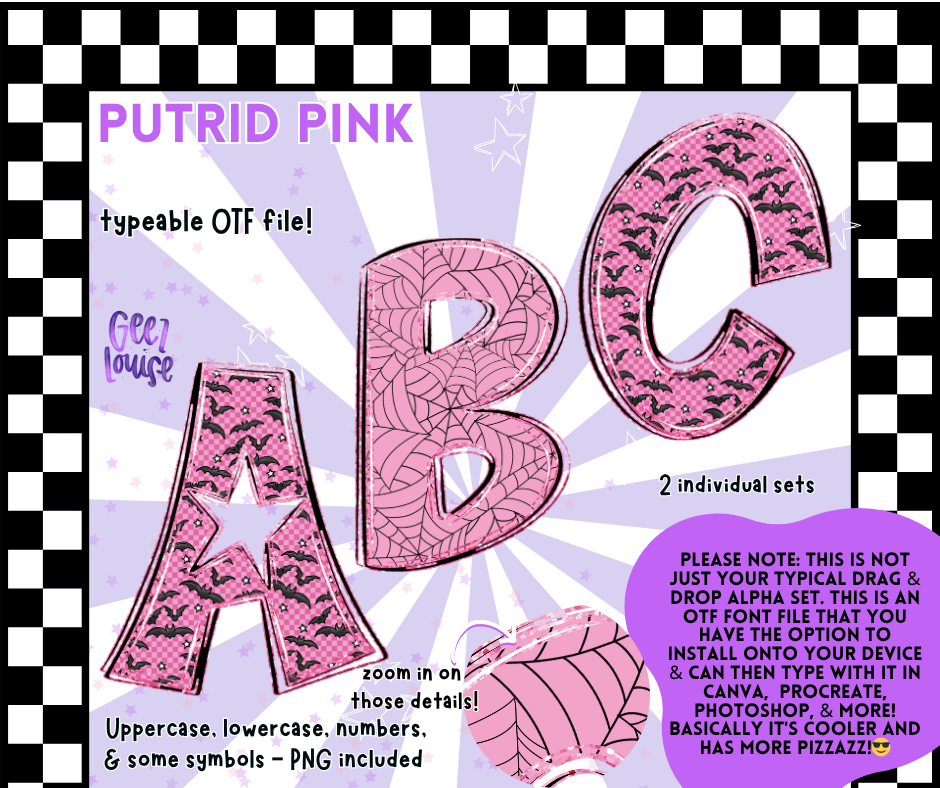
Putrid Pink Halloween Typeable OTF Alpha Font with PNGs | Bat & Spiderweb Styles
💖🦇 Creepy meets cute.
The Putrid Pink Halloween Typeable OTF Alpha Font brings a bold pink twist to spooky season with two designs: tiny bats and intricate spiderwebs. Use it for projects that need a mix of scary and sweet.
• Two spooky pattern styles – Bat print & spiderweb
• Two Halloween styles in one font
• Bright pink twist on classic spooky patterns